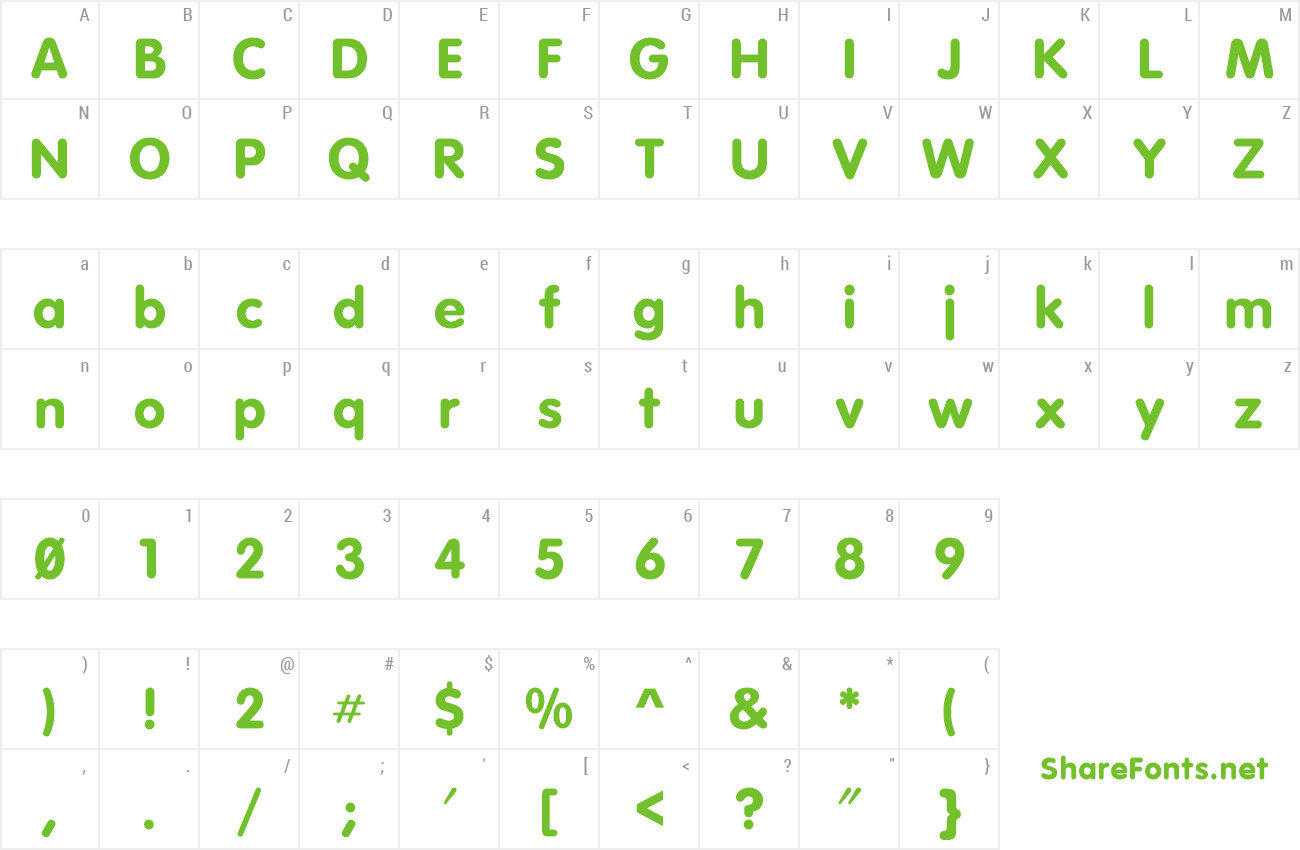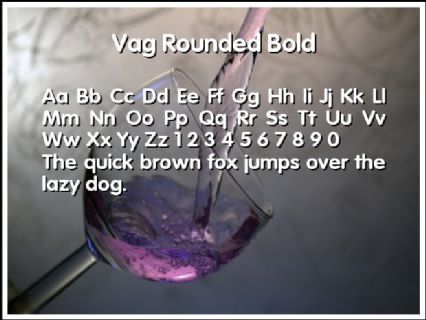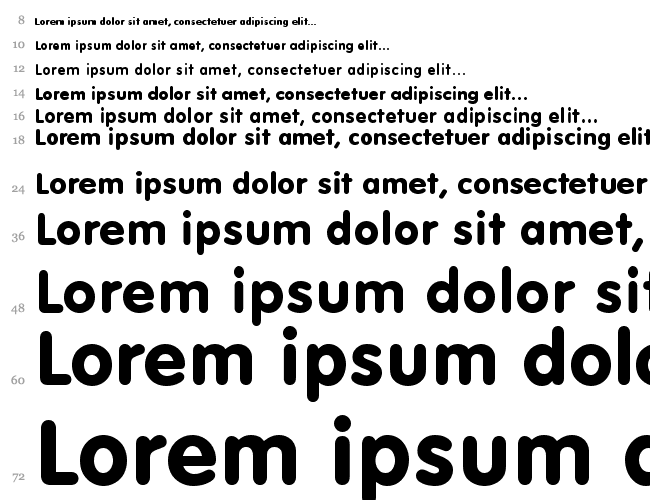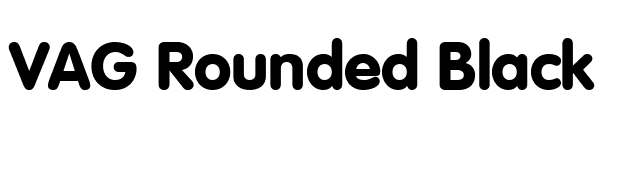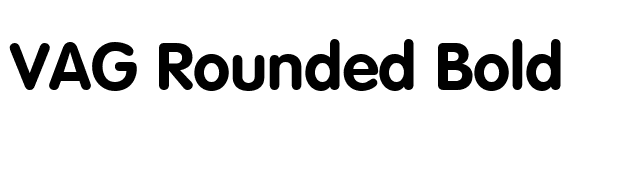
Free and Premium Quality Fonts - Best Premium FontsUse this typeface for technical texts instruction manuals or advertising. Vag rundschrift or vag rounded rundschrift is german for round writing is a geometric sans serif typeface that was designed as a corporate typographic voice for the volkswagen ag motor manufacturer. Download free vag rounded regular font vagroundedbt regularotf vag rounded regular vag rounded1179327216 vag rounded 003001 vagroundedbt regular.
Vag rounded font free download. In voice for differentiation consider pairing the appearance using a serif typeface or a sans serif with type s these sorts of those identified by ff din type men and women trade gothic or even the choice gothic. Helvetica light font free download helvetica narrow helvetica light geometric slabserif 703 square 721 extended geometric slabserif 703 free download swiss 721 bt condensed font free download nexa rust script 0 lapidary 333. Out there in 4 weights from skinny to black the vag rounded family members is undoubtedly an apt preference for logo style and design id programs or any software the place a typographic heat is preferred. The vag rounde font family is part of the assorted collection.
Download 199 free rounded fonts. Vag rounded bold font available in ttf format for you to download. Designed for volkswagon ag in 1979 vag rounded is a modification of 19th century grotesques. Vag rounded font free download.
Vag rounded font free download introducing about vag rounded font. Download vag rounded bold font free in ttf format for windows and mac. We have thousands of free fonts available for you. Exceptional in this typeface are the rounded stroke endings.
It features rounded termini on all strokes. Download vagrounded bt font for pcmac for free take a test drive and see the entire character set.